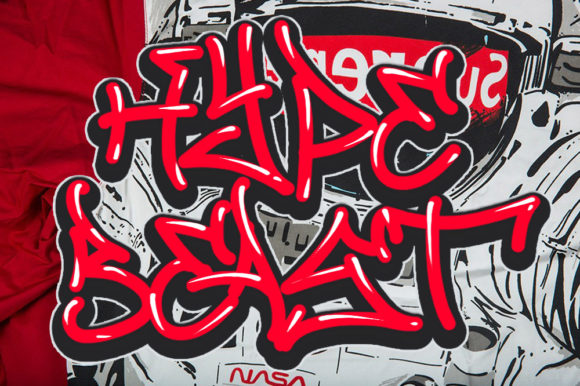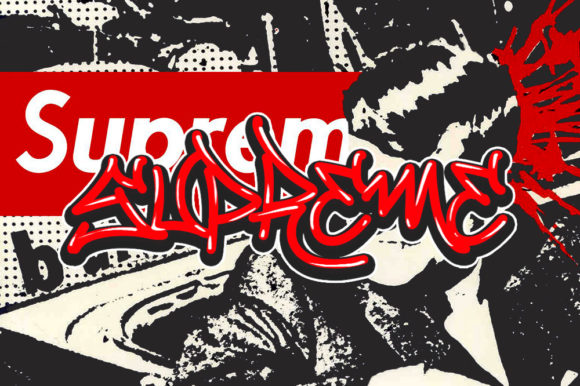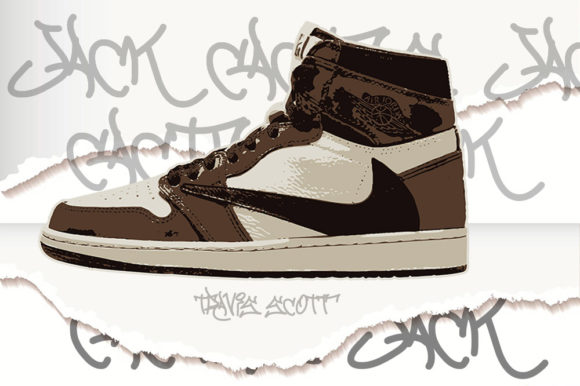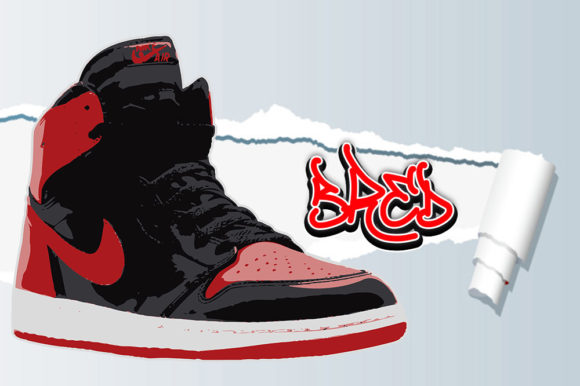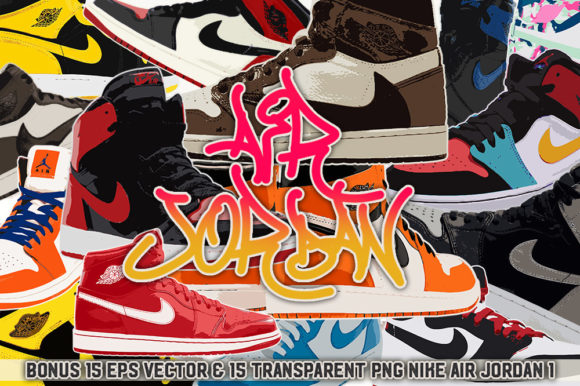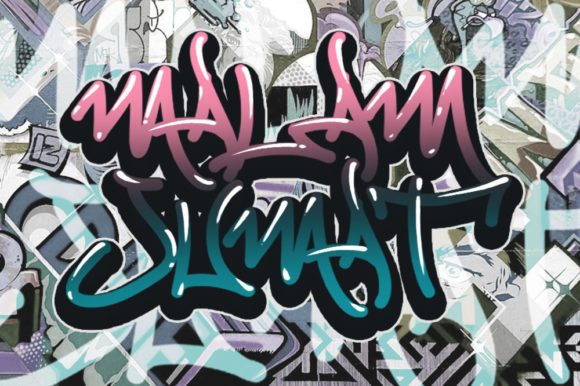
Malam Jumat Vol.4 Font
About Malam Jumat Vol.4 Font
Malam Jumat Vol.4 is a stunning graffiti font with a cool vibe. It will add an urban feel to any design project!